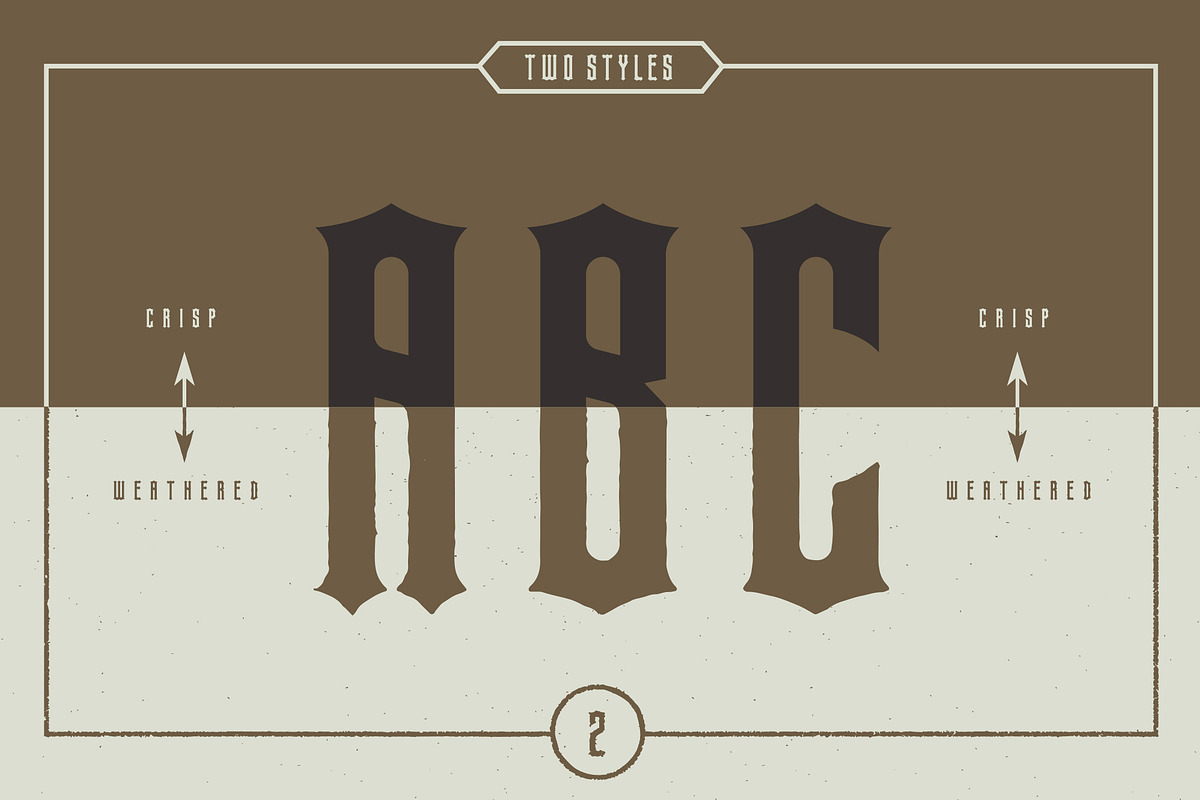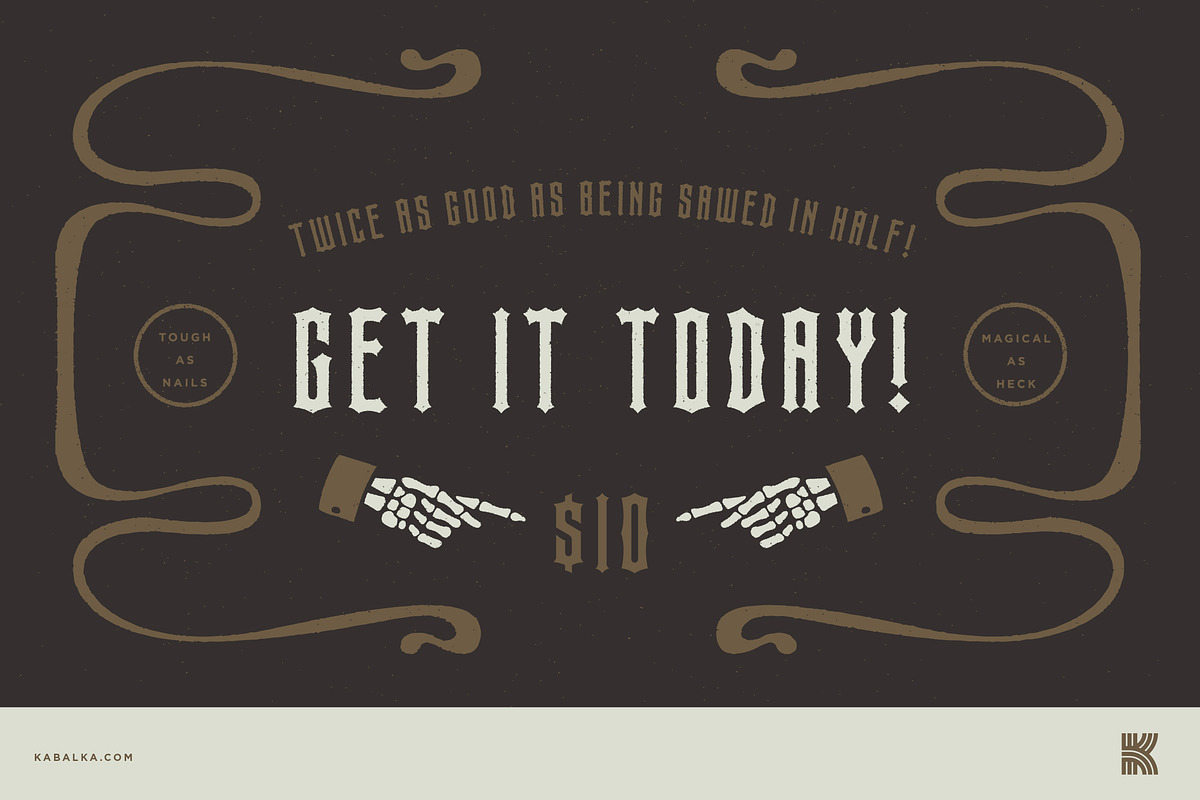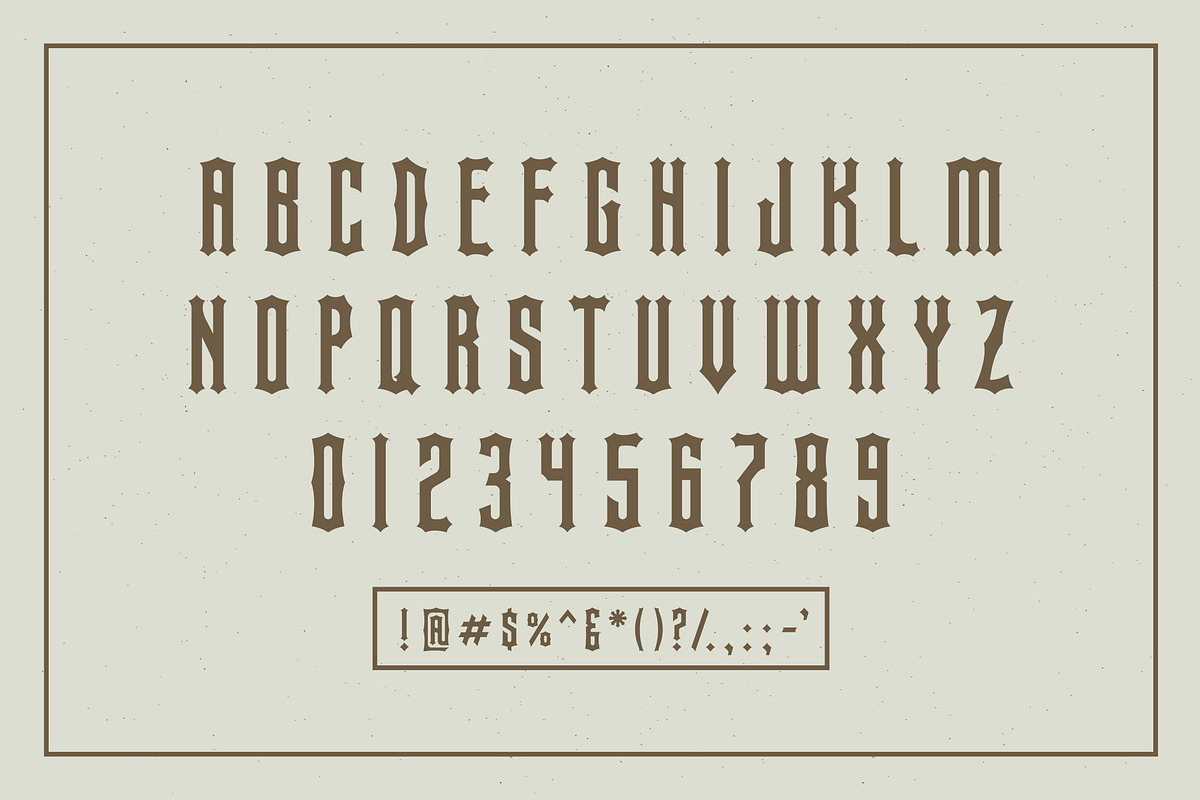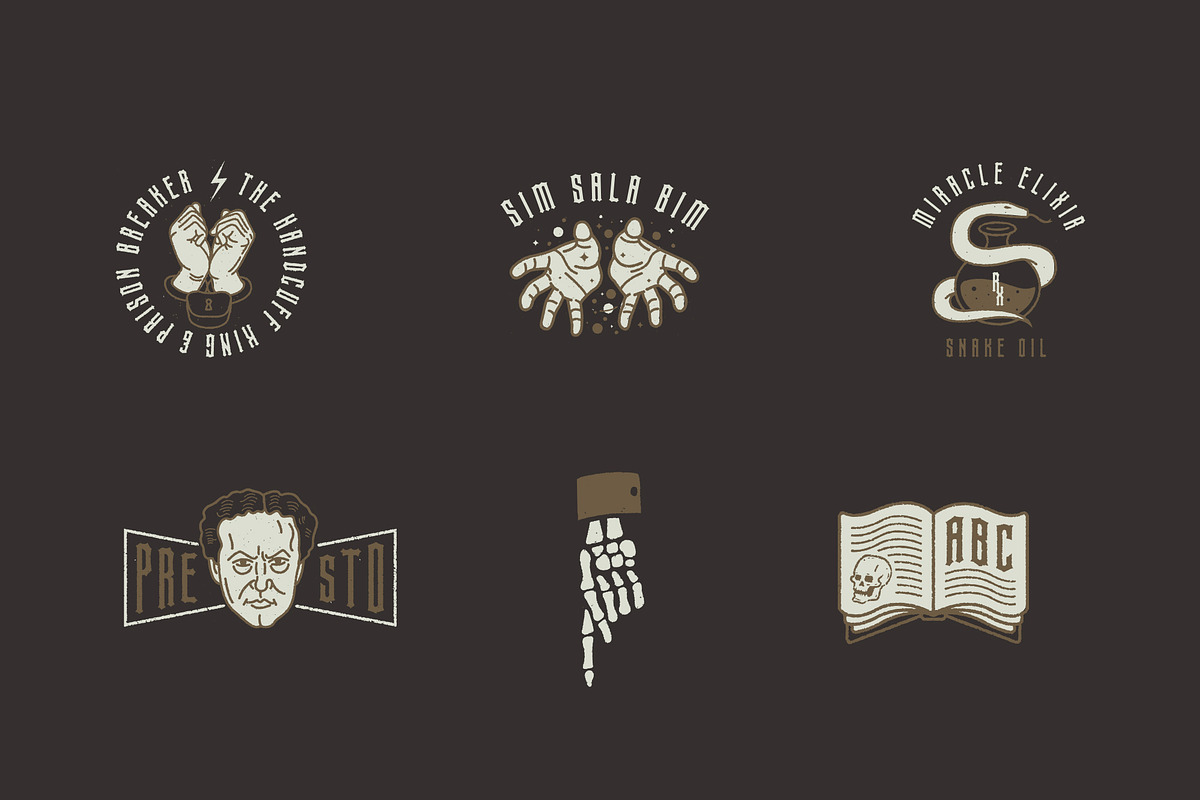
Ehrich Display Typeface
Ehrich Display Typeface by Jordan Kabalka is a font selected for branding, posters, packaging, typography.
- Ehrich Regular
- Ehrich Rough
Why Ehrich Display Typeface is worth a look
Ehrich Display Typeface by Jordan Kabalka fits naturally into Branding, posters, packaging, typography.